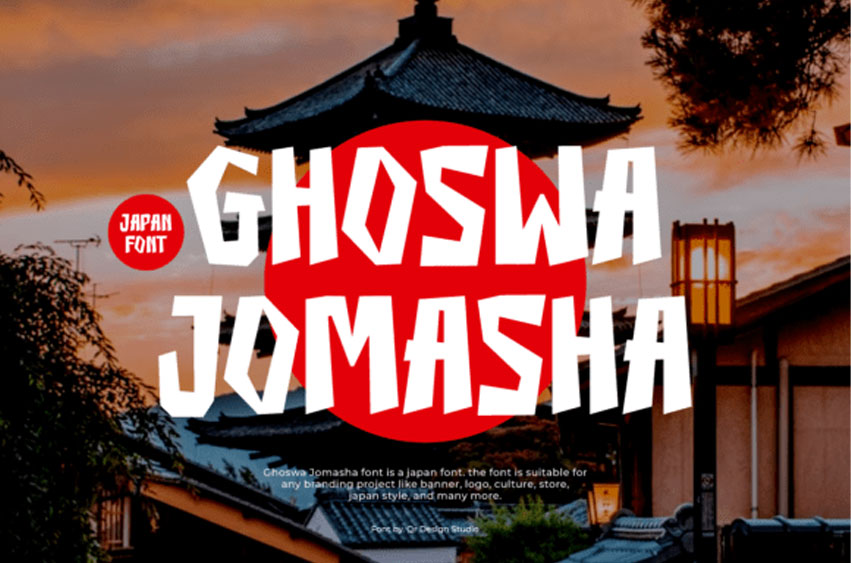
Ghoswa Jomasha Font is a bold and dynamic display font inspired by traditional Japanese aesthetics and brushstroke energy.
With its jagged edges and strong, angular forms, this font is perfect for Asian-themed branding, cultural posters, martial arts events, sushi restaurant logos, and more. It captures the spirit of Japanese calligraphy while adding a modern twist for maximum visual impact.
If your design needs a bold identity with cultural flair, Ghoswa Jomasha delivers authenticity and attitude in every letter.